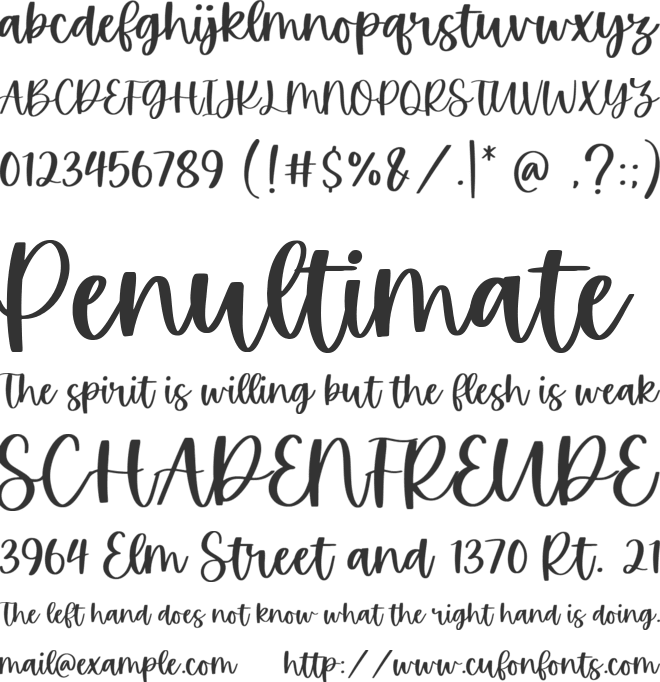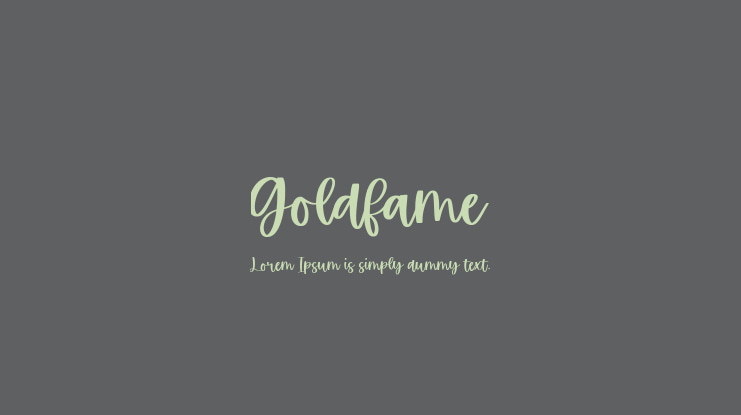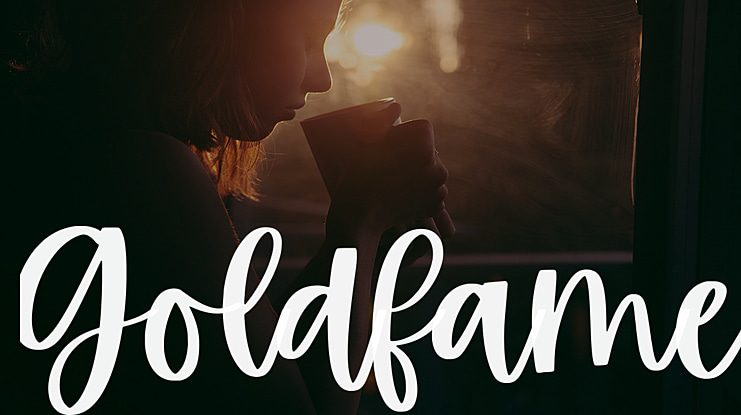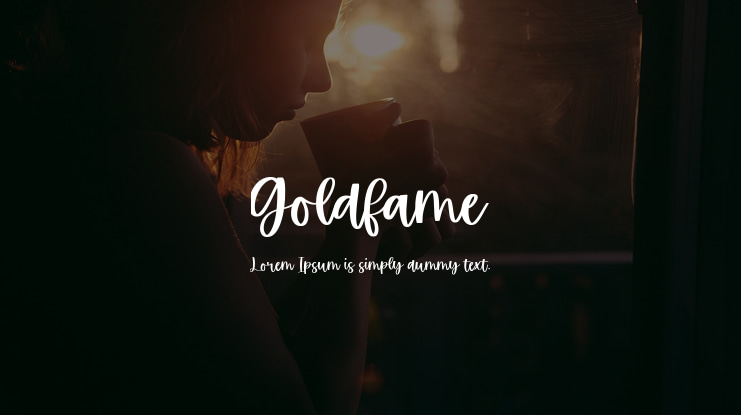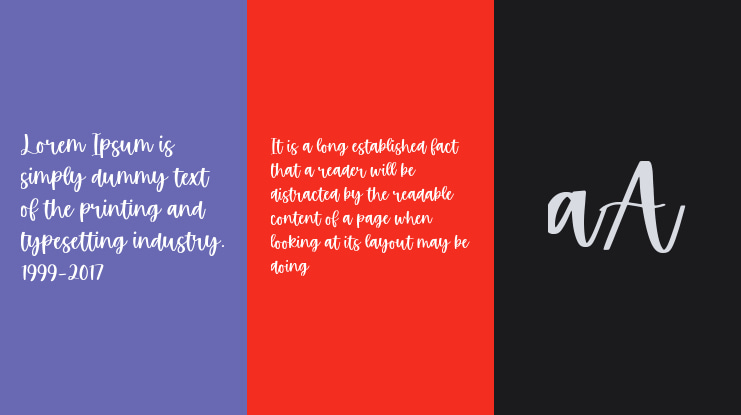
Goldfame Font
Goldfame is a bold yet elegant handwritten script font. Whether you’re looking for fonts for Instagram or calligraphy scripts for DIY projects, this font will turn any creative idea into a true piece of art!